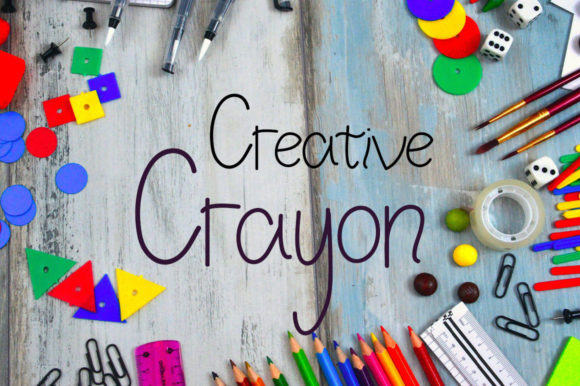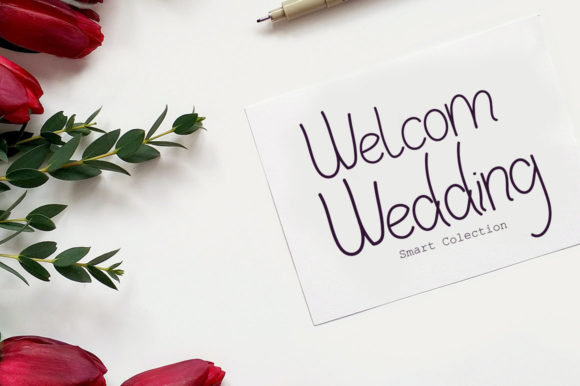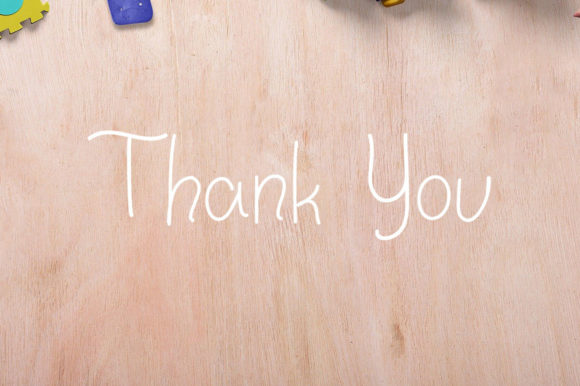
Introducing Farm House Font: The Sweet and Friendly Handwritten Font for Your Creative Projects
Are you a designer, crafter, or DIY enthusiast looking for a font that can add a personal touch to your projects? Look no further than Farm House Font, a sweet and friendly handwritten font that’s perfect for a wide range of designs. With its natural and unique style, Farm House Font is incredibly versatile and can be used for everything from rustic home decor to modern branding and marketing materials.
Handwritten fonts have a way of adding a personal touch to any design. They evoke a sense of warmth, friendliness, and approachability that’s hard to replicate with more formal fonts. Farm House Font takes this to the next level with its whimsical, cursive style that’s reminiscent of handwritten notes and letters from a bygone era.
What Makes Farm House Font So Special?
So, what sets Farm House Font apart from other handwritten fonts on the market? Here are just a few things that make it special:
- Natural and Unique Style: Farm House Font has a one-of-a-kind style that’s both natural and unique. It’s perfect for designers and crafters who want to add a personal touch to their projects without sacrificing legibility.
- Highly Versatile: Whether you’re working on a rustic home decor project, a modern branding campaign, or a DIY craft, Farm House Font is incredibly versatile and can be used in a wide range of designs.
- Easy to Read: Despite its handwritten style, Farm House Font is incredibly easy to read, making it perfect for body text, headings, and titles.
- Imagination is the Only Limit: With Farm House Font, the only limit is your imagination! Use it to create unique and eye-catching designs that reflect your personal style.
Farm House Font is perfect for designers and crafters who want to add a personal touch to their projects. Here are just a few ways you can use Farm House Font in your designs:
- Rustic Home Decor: Use Farm House Font to create unique and eye-catching signs, banners, and other home decor items with a rustic, country feel.
- Branding and Marketing: Add a personal touch to your branding and marketing materials with Farm House Font. It’s perfect for logos, business cards, and social media graphics.
- DIY Crafts: Use Farm House Font to create personalized gifts, such as handmade cards, gift tags, and other craft projects.
- Stationery and Invitations: Create beautiful and unique stationery and invitations with Farm House Font. It’s perfect for weddings, birthdays, and other special occasions.
Tips for Using Farm House Font
Here are a few tips for using Farm House Font in your designs:
- Experiment with Different Sizes: Farm House Font looks great in a variety of sizes, from small body text to large headings. Experiment with different sizes to find the one that works best for your design.
- Pair with Other Fonts: Farm House Font pairs well with a variety of other fonts, including serif and sans-serif fonts. Experiment with different font combinations to find the one that works best for your design.
- Use in Combination with Images: Farm House Font looks great in combination with images, especially those with a natural or rustic theme. Use it to add a personal touch to your designs and make them more eye-catching.
| Font Name | Farm House Font |
| Author | Roni Studio |